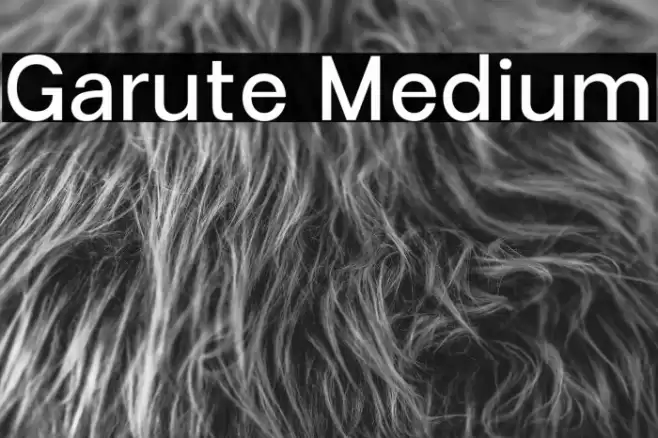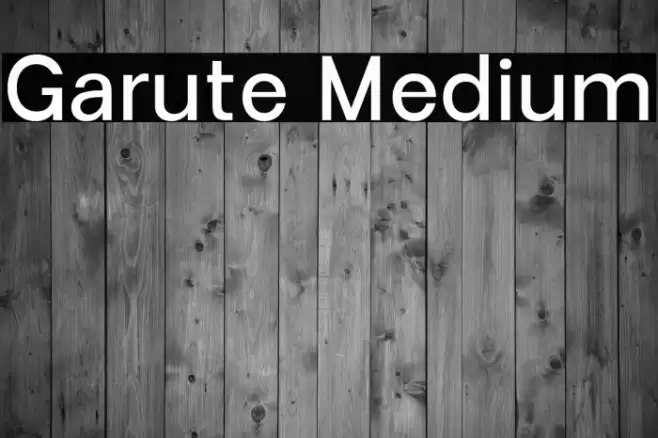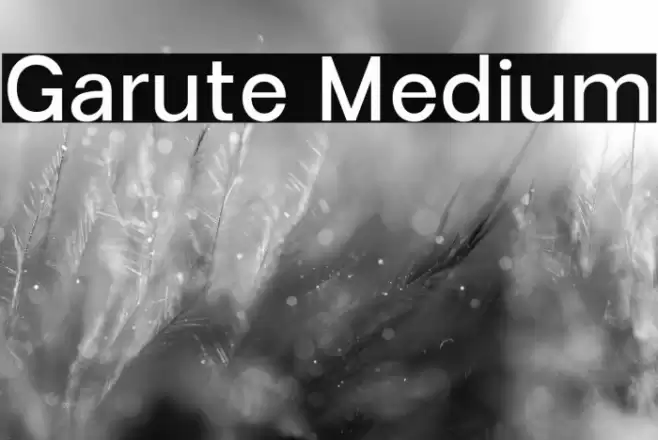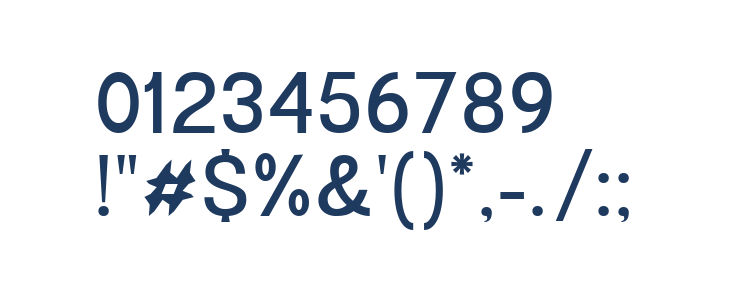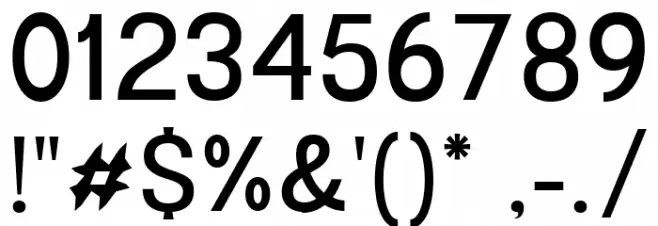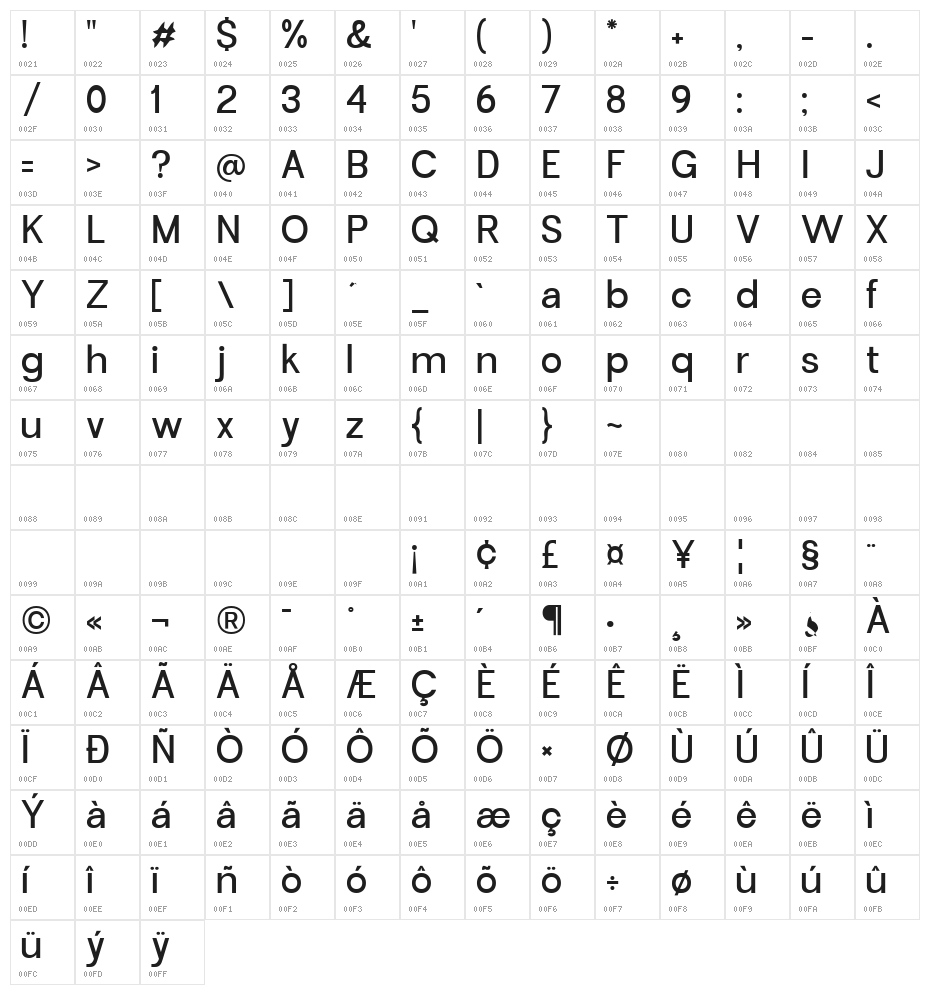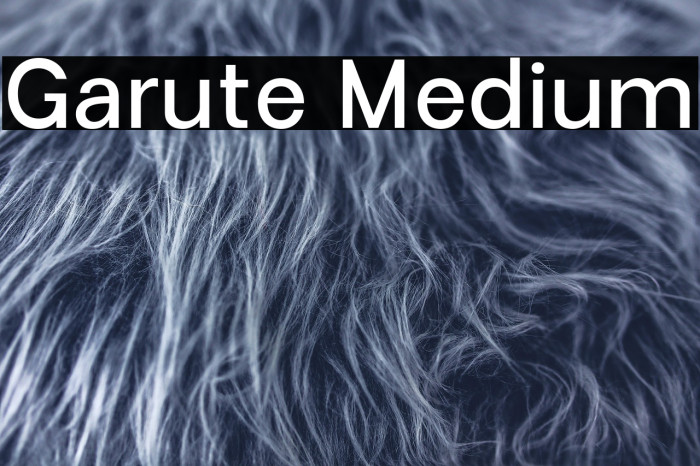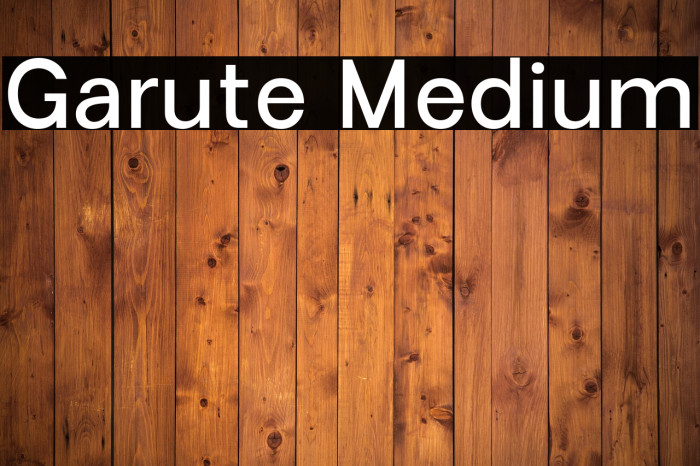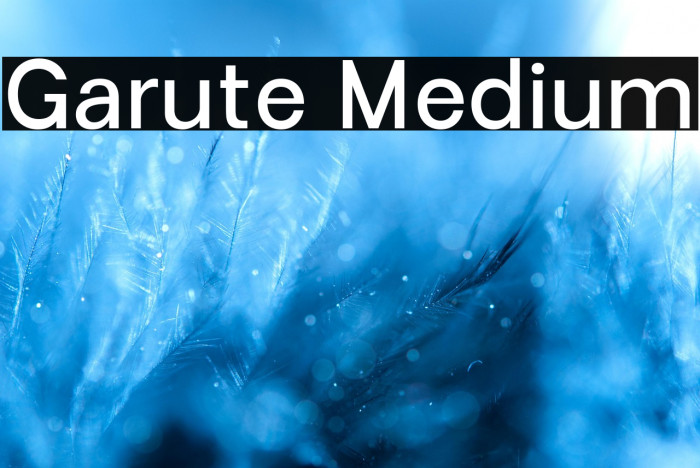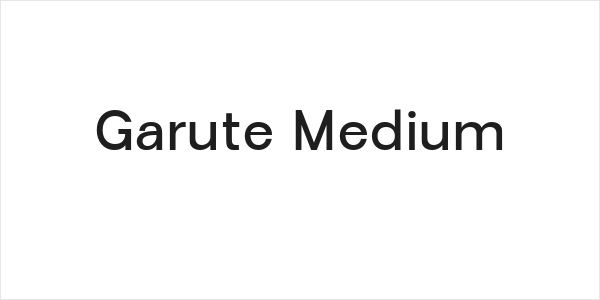
Garute Medium Font
Garute Medium Description
This typeface presents a clean and modern aesthetic, characterized by its sans-serif design. The letters are crafted with uniform stroke widths, providing a balanced and harmonious appearance. The uppercase and lowercase characters maintain a consistent height ratio, enhancing readability. The numerals are straightforward, aligning seamlessly with the overall style. Special characters are clearly defined, ensuring versatility across various applications. The font's simplicity and clarity make it suitable for both digital and print media, offering a professional and contemporary look.
A modern, sans-serif font with uniform strokes and excellent readability from Uncategorized fonts.